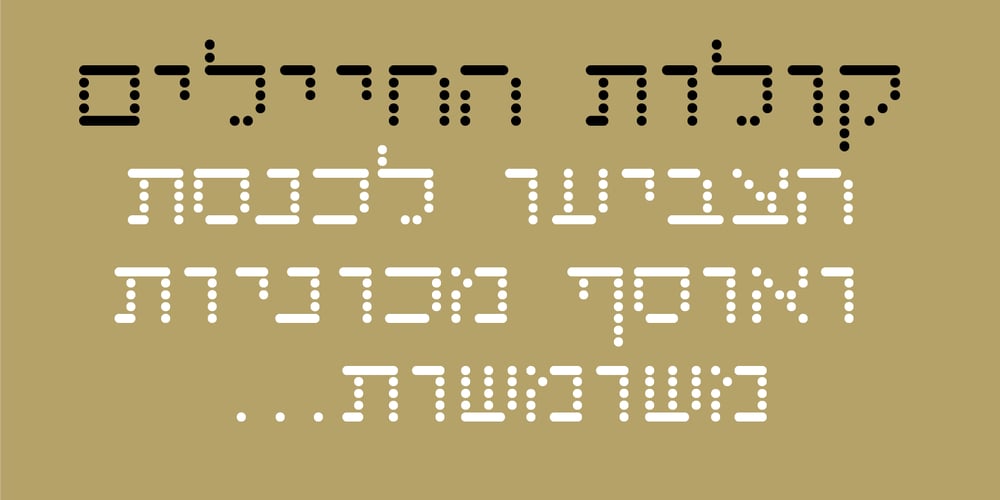
Shooma MF Font Family was designed by Zvika Rosenberg and published by Masterfont. Shooma MF contains 3 styles and family package options. Ever wondered how your great text will look like as if it just came out of an ATM machine? Here it is!